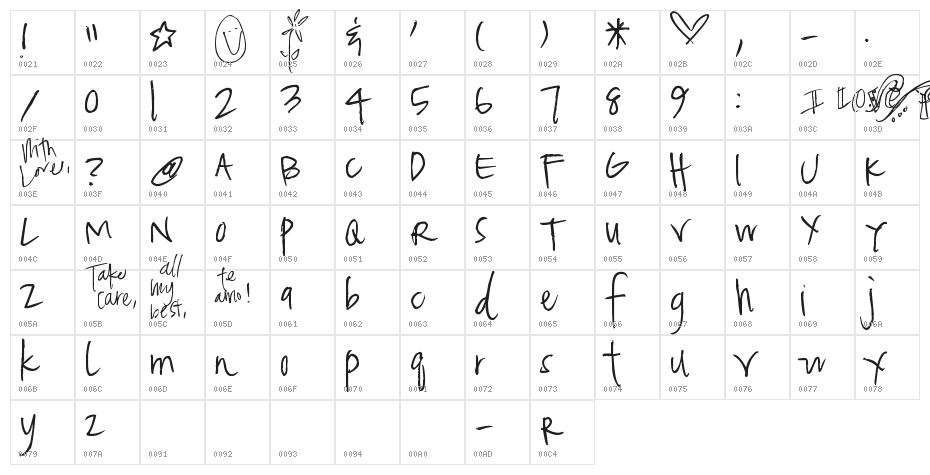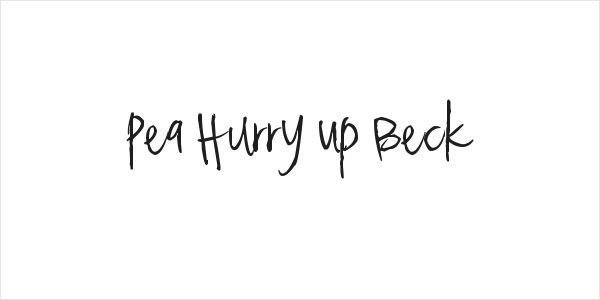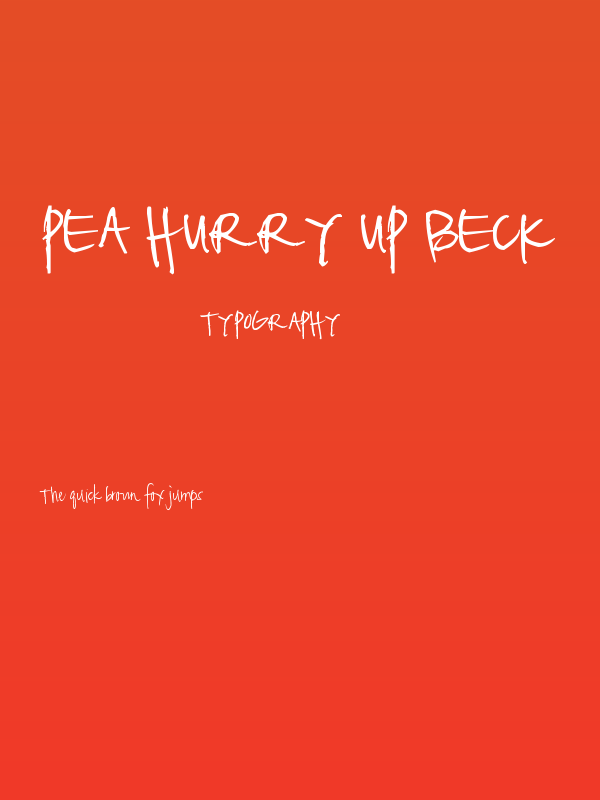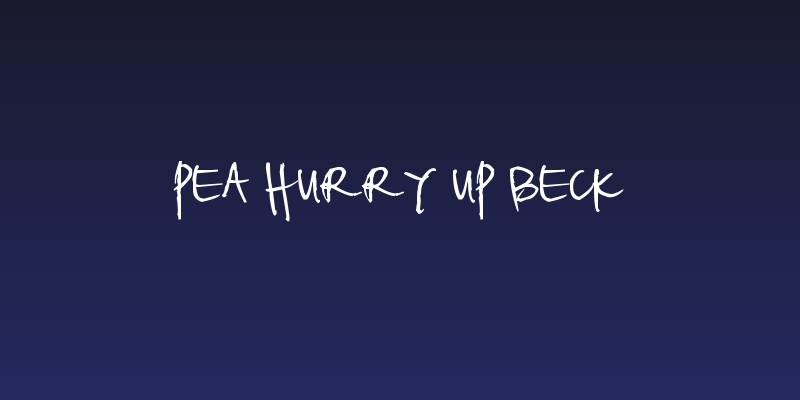
Pea Hurry Up Beck Font
Pea Hurry Up Beck Description
This font exhibits a playful and energetic handwritten style, characterized by its loose, casual strokes and slightly irregular letterforms. The uppercase and lowercase letters maintain a consistent flow, with a natural, unrefined appearance that mimics quick, spontaneous handwriting. The numerals and special characters follow the same informal aesthetic, adding to the overall cohesive look. The font's charm lies in its imperfect, human touch, making it ideal for projects that require a personal, approachable feel.
| Use Case | Logos, Headlines, Informal Text |
| Proposed Projects | Ideal for personal notes, greeting cards, informal invitations, and creative projects that benefit from a human touch. |